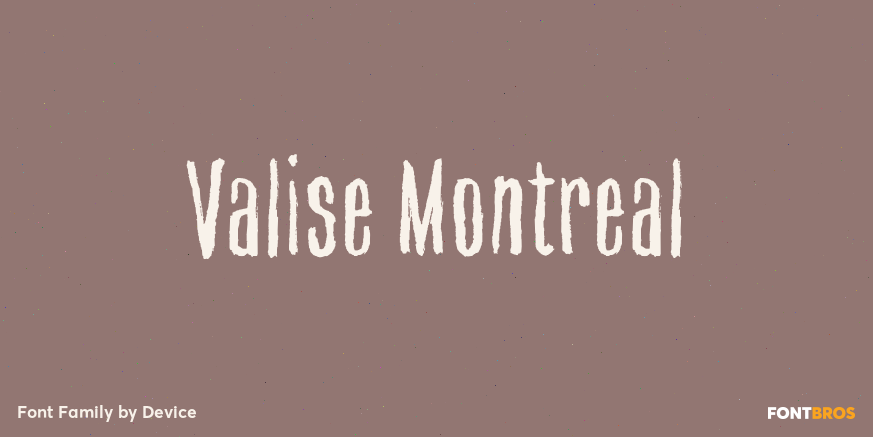
Valise Montreal
About Valise Montreal
A condensed loose brush style. This font has a breezy elegance and casual sophistication, yet in a different context or color, it could be seen as nervous and urban. A weird dichotomy. Set in smallish text blocks, it has a surprisingly even color. This…